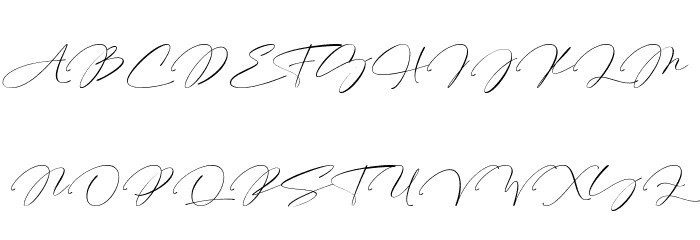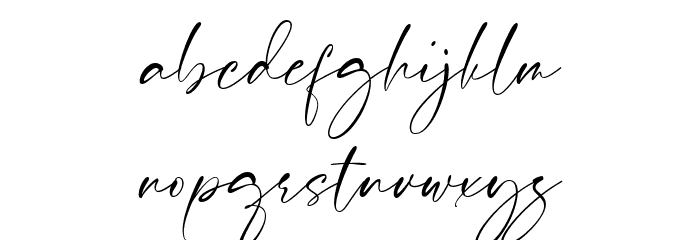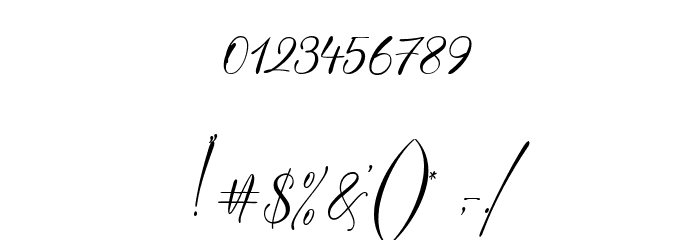
Pardone Font
This elegant script font features fluid, cursive strokes that convey a sense of sophistication and grace. The uppercase letters are characterized by sweeping curves and delicate loops, while the lowercase letters maintain a consistent flow with subtle variations in stroke width. The numerals and special characters complement the overall style with their refined and artistic design. This font exudes a handwritten charm, making it ideal for projects that require a personal touch.
A graceful and sophisticated script font with fluid, cursive strokes.
- Font: Pardone
- Proposed Projects: Ideal for wedding invitations, greeting cards, branding, and elegant logo designs.
- Category: Script
- Overall Style: Elegant, Handwritten
- Use Case: Logos, Invitations, Personal stationery